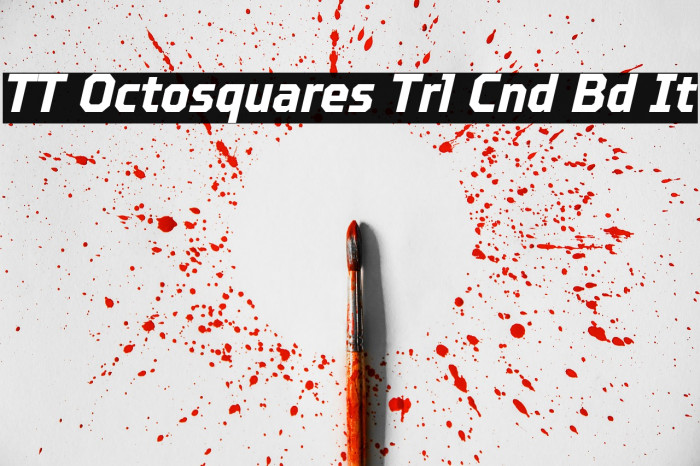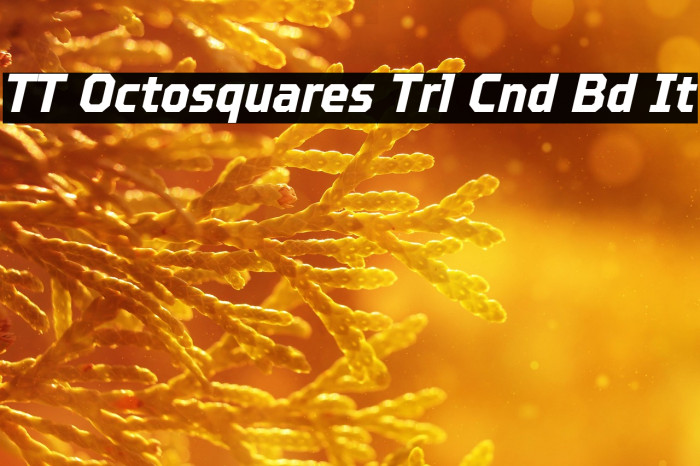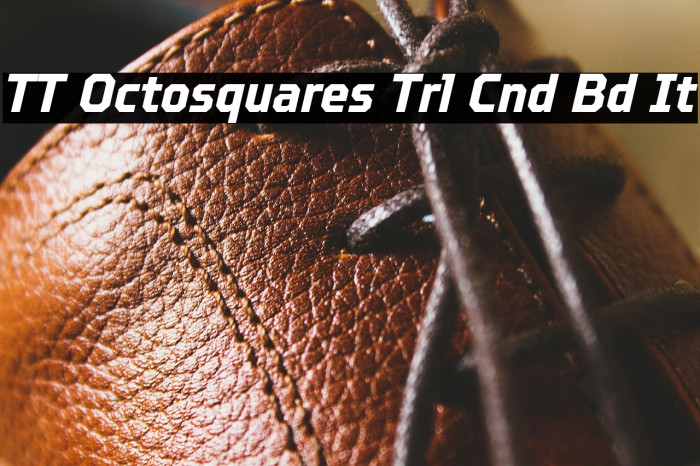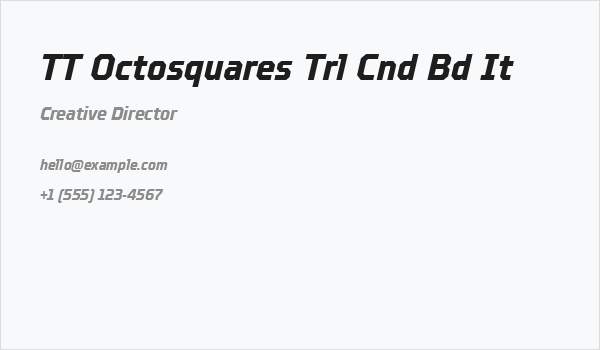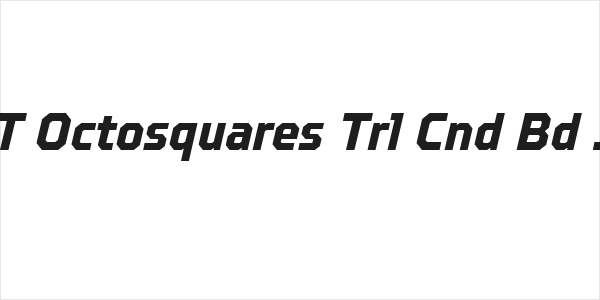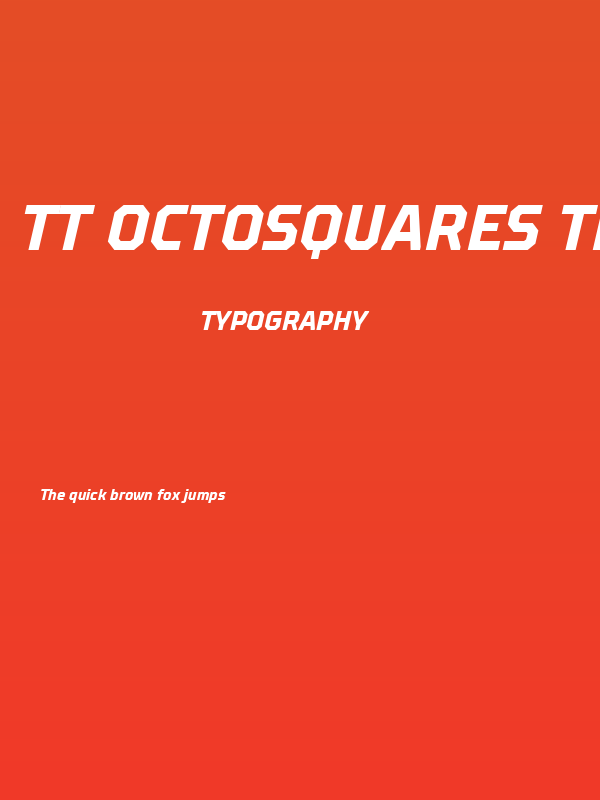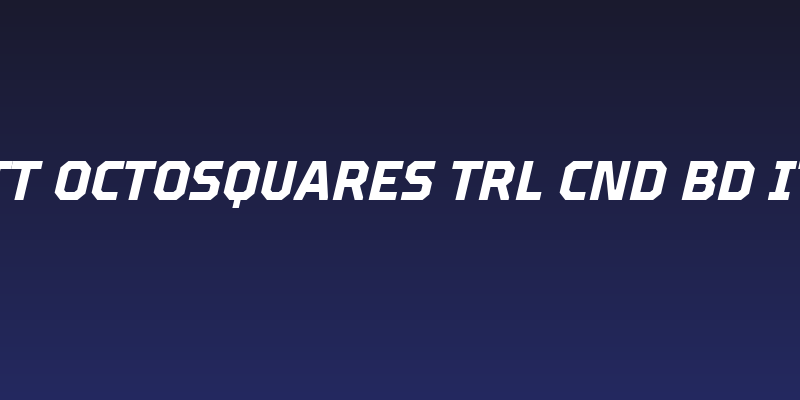
TT Octosquares Trl Cnd Bd It Font
TT Octosquares Trl Cnd Bd It Description
This font features a bold and dynamic design with a condensed structure, giving it a strong and impactful appearance. The characters are slightly italicized, adding a sense of motion and modernity. The geometric shapes and sharp angles create a futuristic and tech-inspired look, making it suitable for contemporary designs. The uppercase and lowercase letters maintain a consistent style, while the numerals and special characters complement the overall aesthetic. The font's clean lines and uniform weight contribute to its readability and versatility.
| Use Case | Logos, Headlines, Digital Interfaces |
| Proposed Projects | Ideal for technology branding, sports team logos, modern advertising, and digital interfaces. |